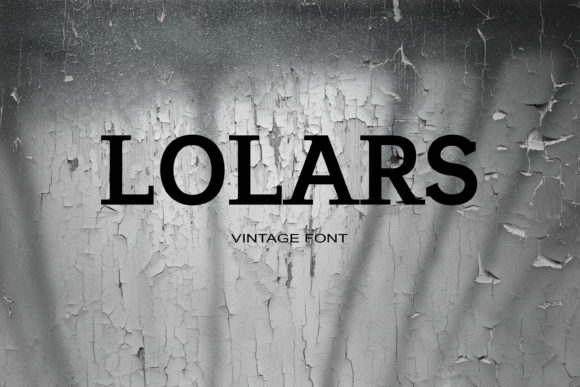
Lolars Font
Behold Lolars, a serif font that dances off the page like a timeless melody. Its graceful curves and delicate flourishes bring elegance and charm to your designs, leaving a lasting impression on every word. Whether crafting a captivating logo, an unforgettable invitation, or a poignant letter, Lolars is your perfect companion in the world of words.
Step into a world of sophistication and charm, where Lolars takes center stage. Experience the joy of crafting designs that effortlessly captivate, leaving an indelible mark on your audience. Let your imagination roam free as Lolars elevates your words, transforming them into unforgettable expressions of art.
Move beyond the ordinary and embrace the extraordinary with Lolars. Discover a font family that understands the language of emotions, speaking to your audience with a voice that resonates deep within. Unlock the power to create designs that tug at the heartstrings and leave a lasting legacy.
Lolars is not just a font; it's an experience. It's a journey through time and emotions, where each letter carries a story, each word paints a picture, and every design tells a tale. Immerse yourself in the artistry of Lolars, and let your creativity flow like never before.
Break the mold and embrace the captivating elegance of Lolars. Experience the joy of creating designs that stand out from the crowd, leaving a lasting impression on all who behold them. Let Lolars be your muse, your guiding light in the realm of unforgettable design.